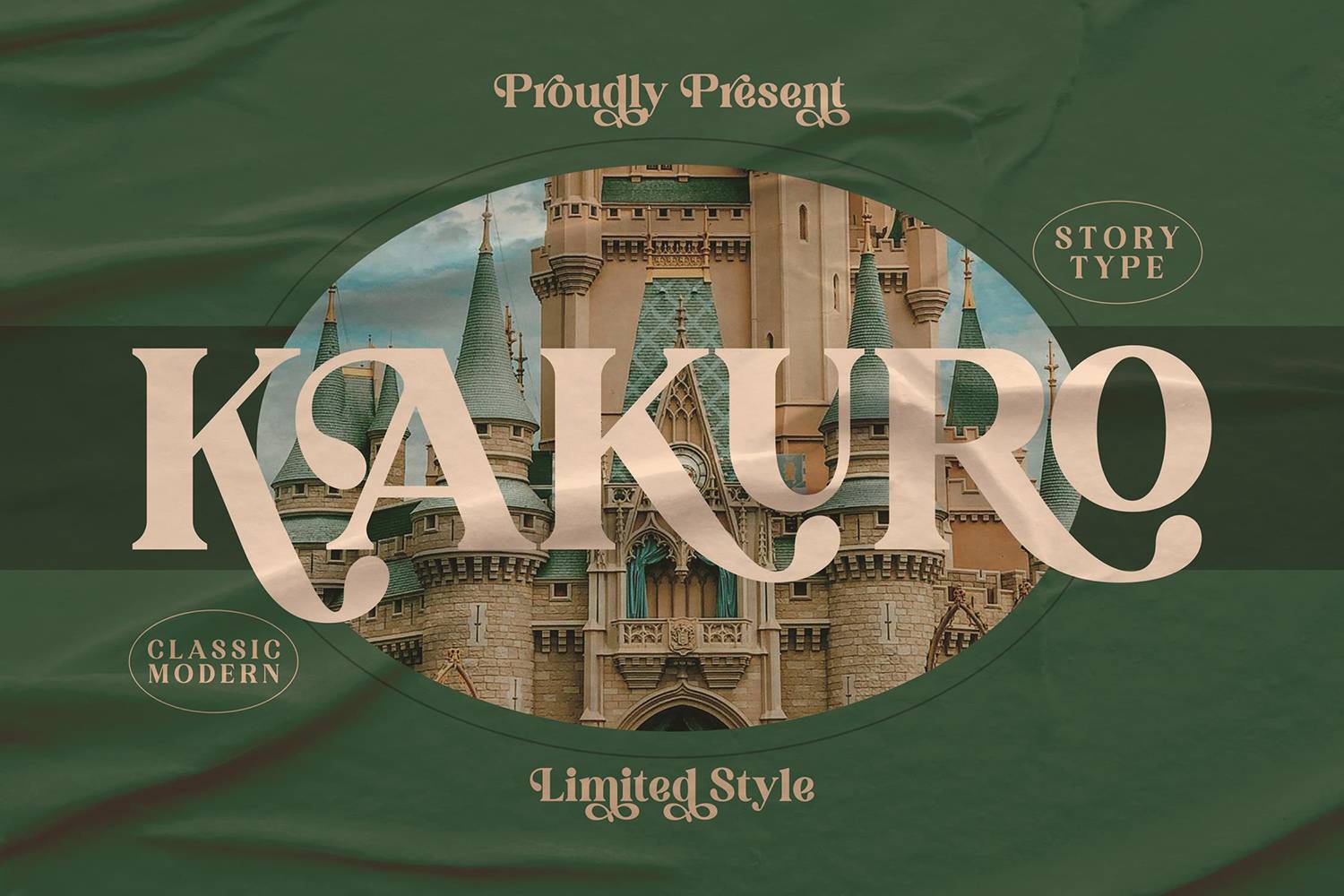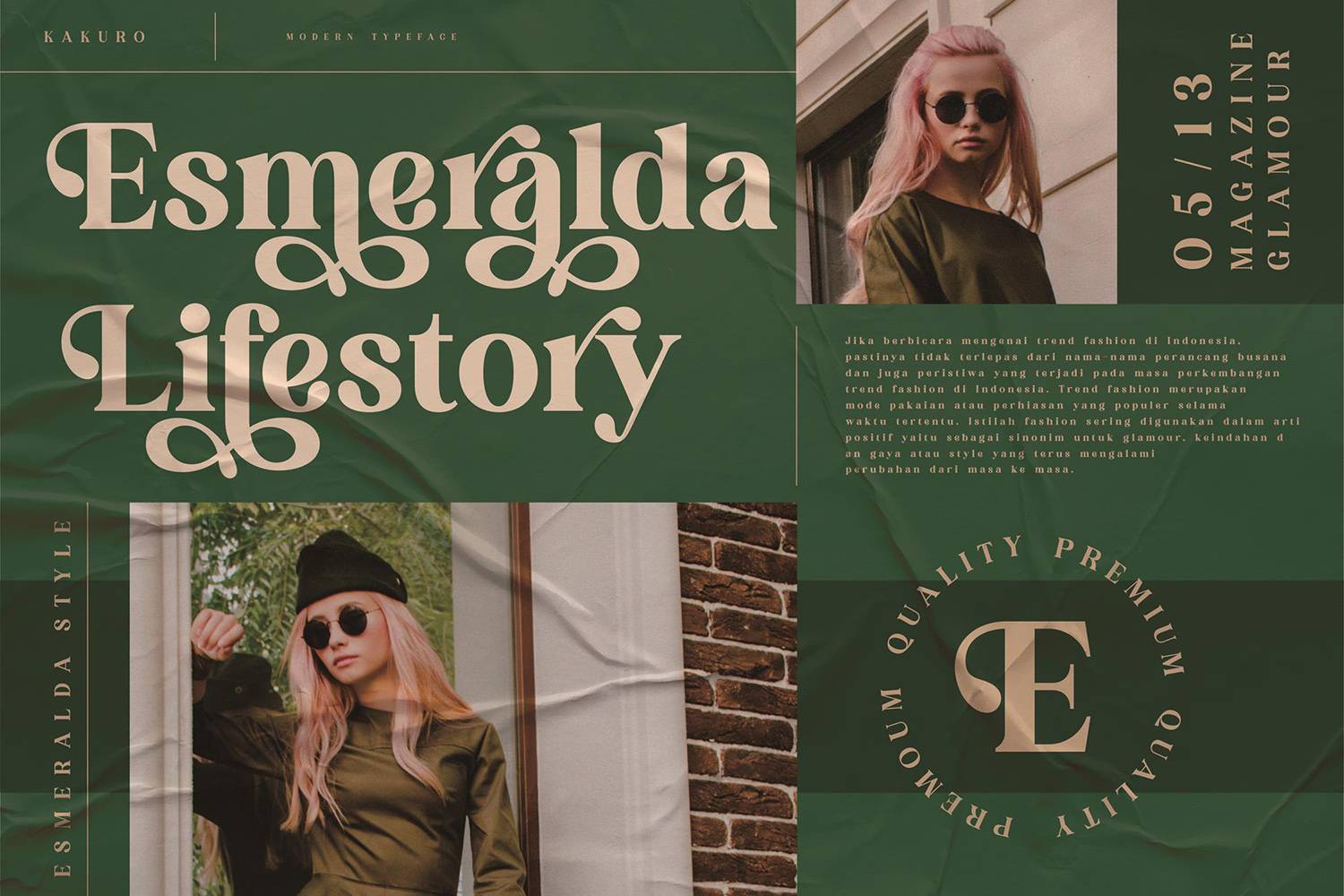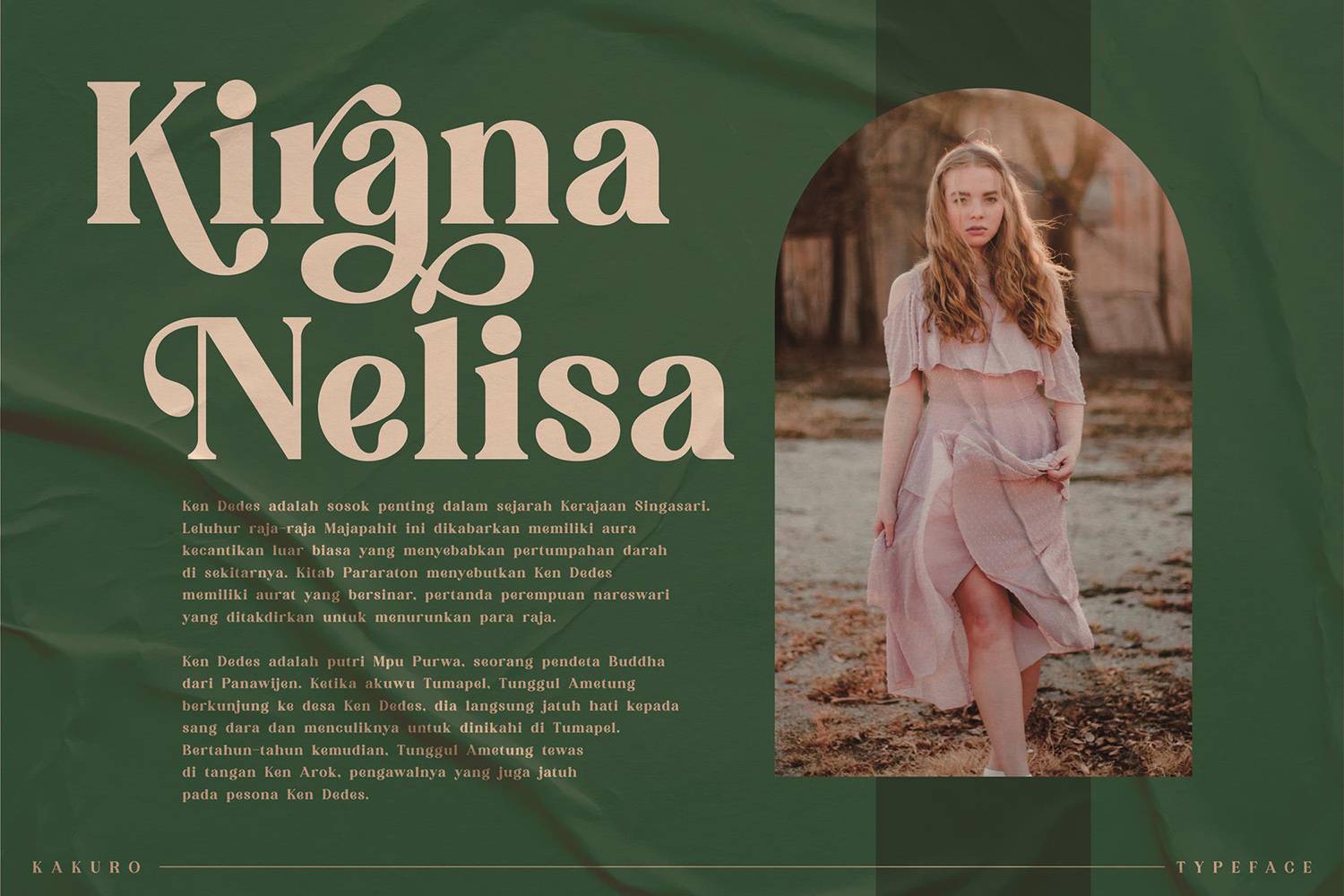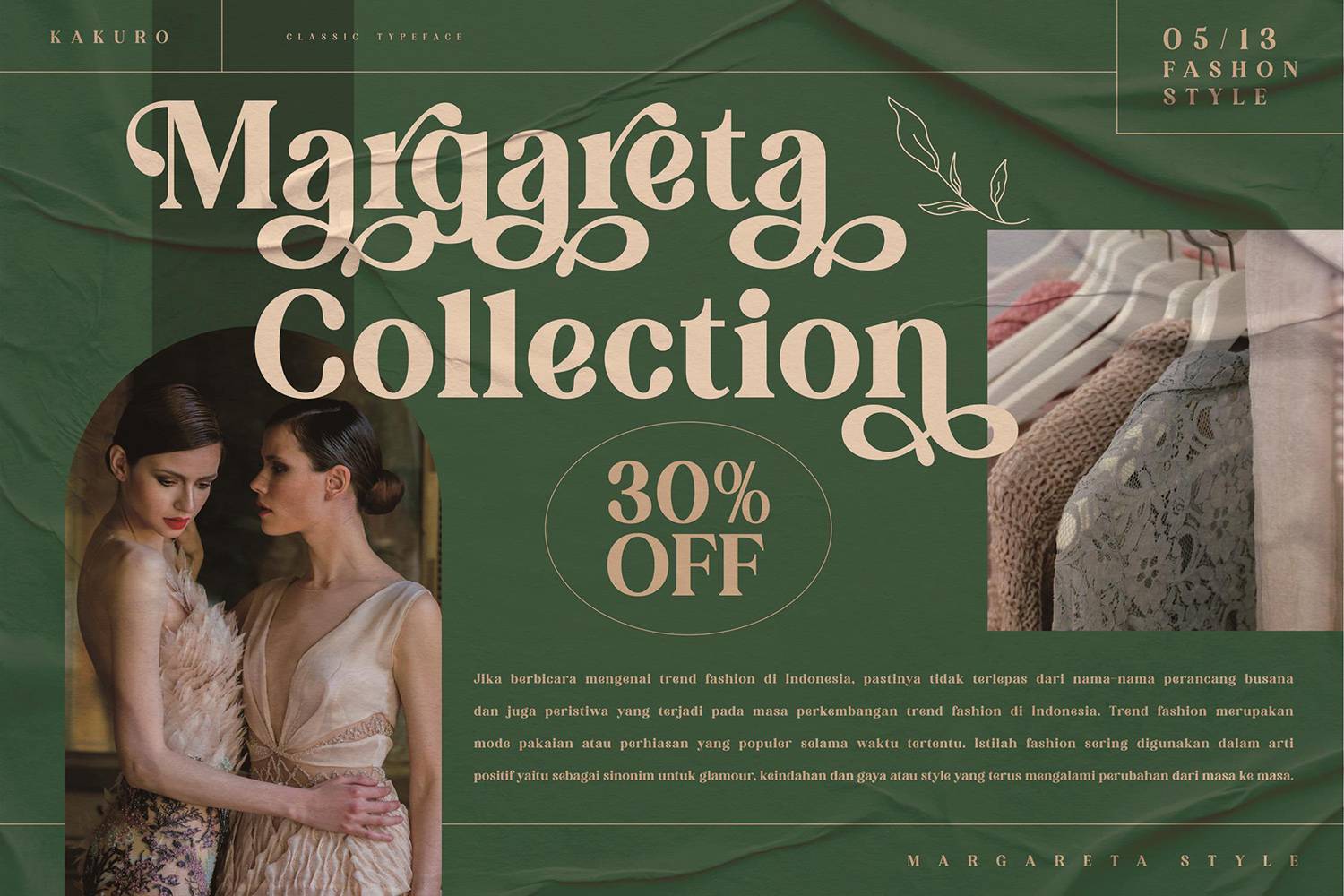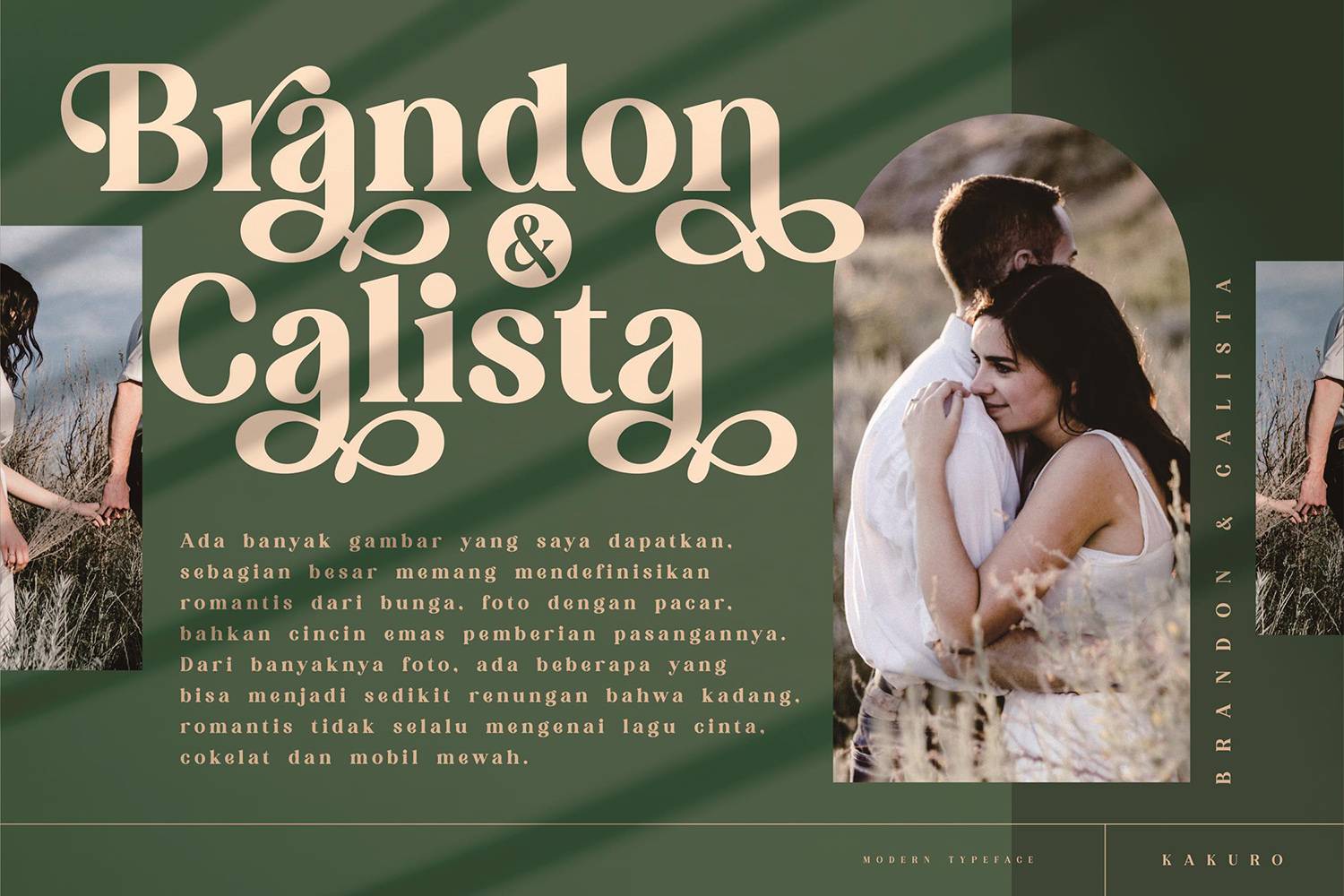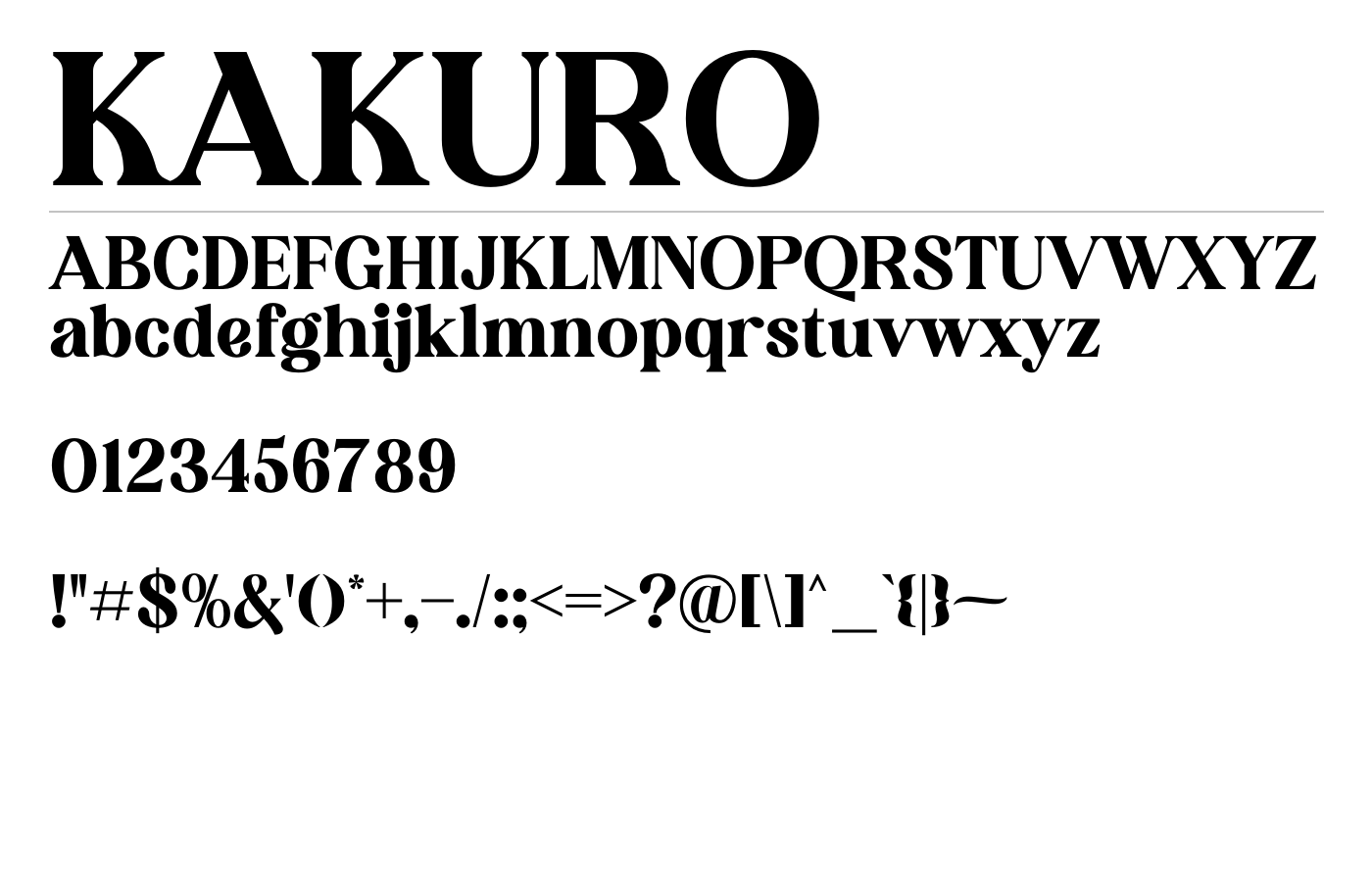
Kakuro is a classic serif font with a strong, elegant presence characterized by its high contrast between thick and thin strokes and sharp, crisp serifs. It features a traditional old-style design with distinctive bracketed serifs, single-story 'g', and refined letterforms that give it a timeless, sophisticated feel, making it ideal for editorial use, luxury branding, and formal headlines. Its balanced proportions and clear readability also make it suitable for print and high-end packaging where a sense of heritage and refinement is desired.
Kakuro Font
About Kakuro Font